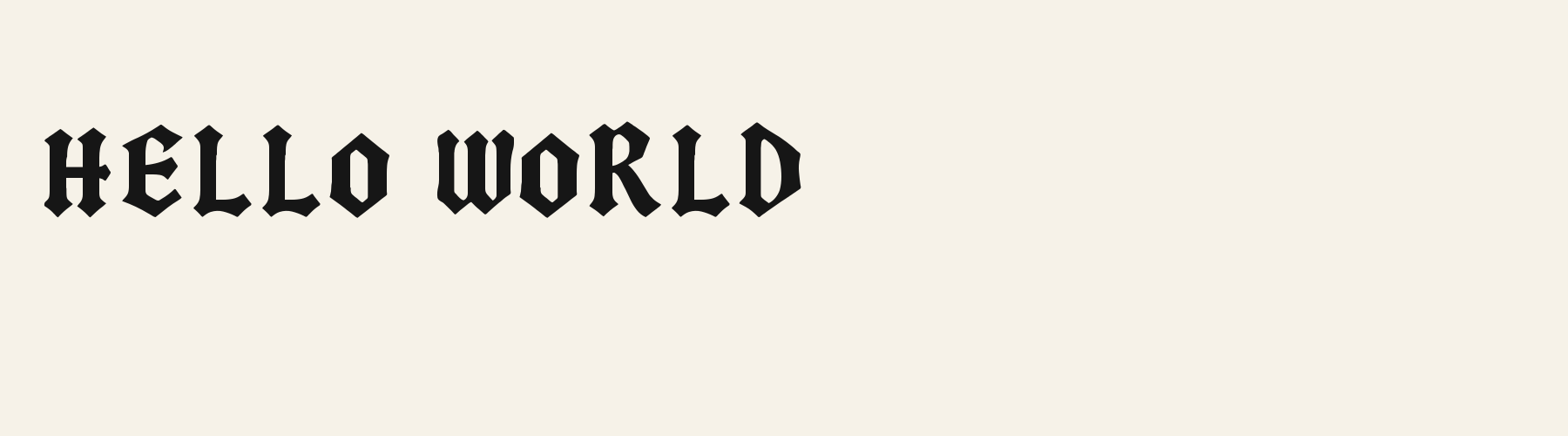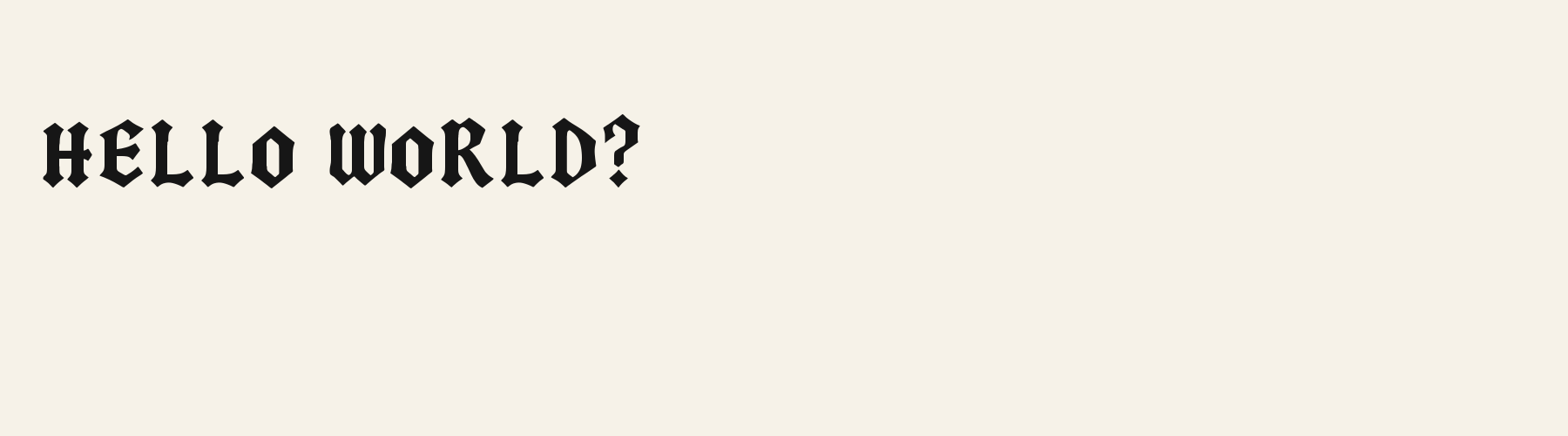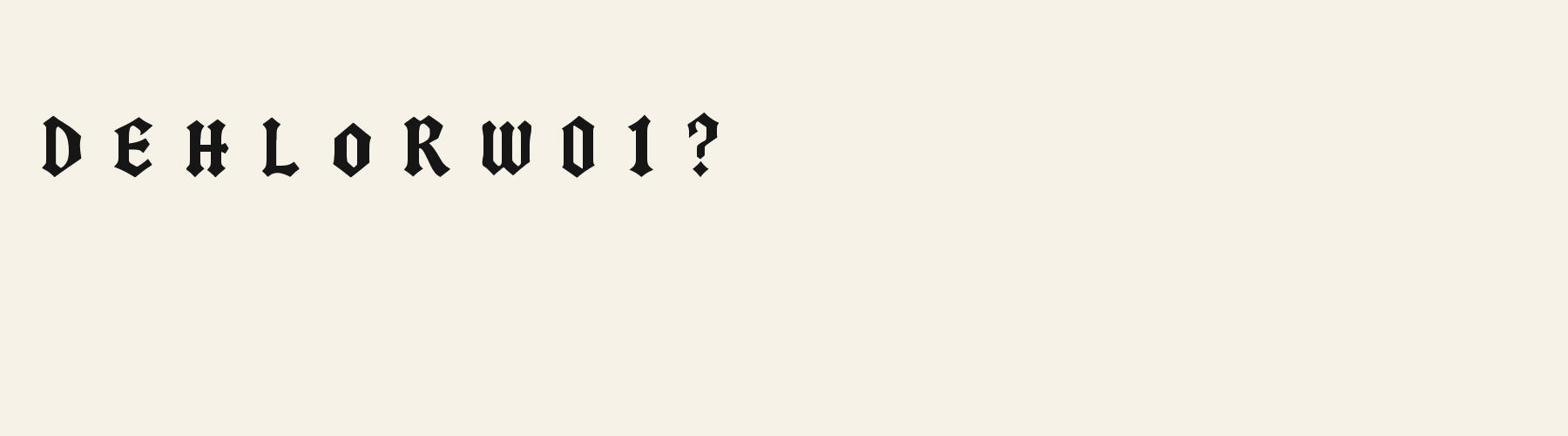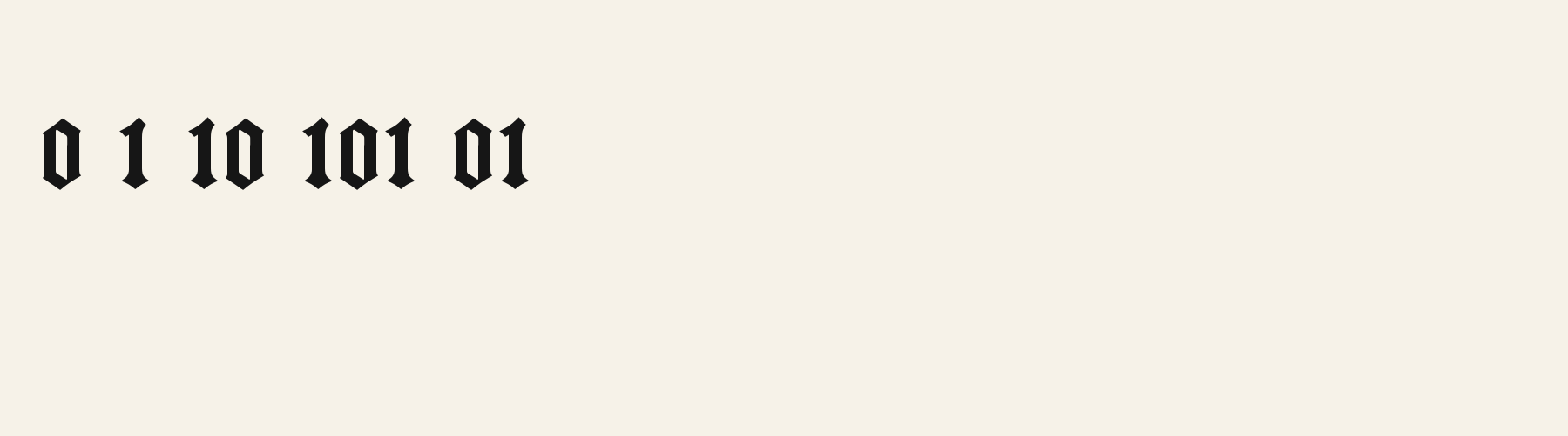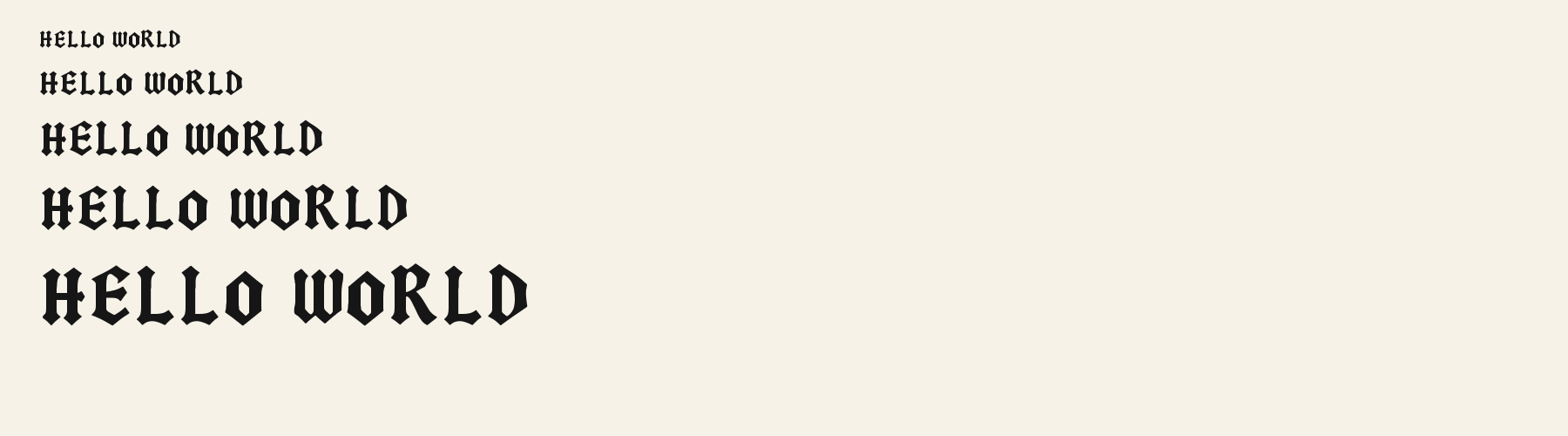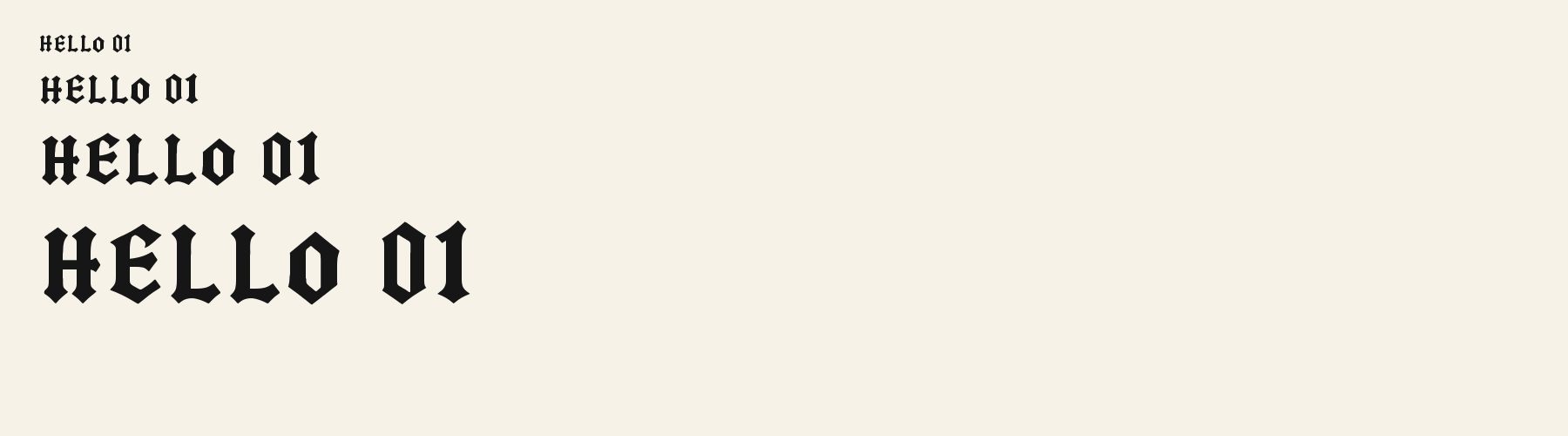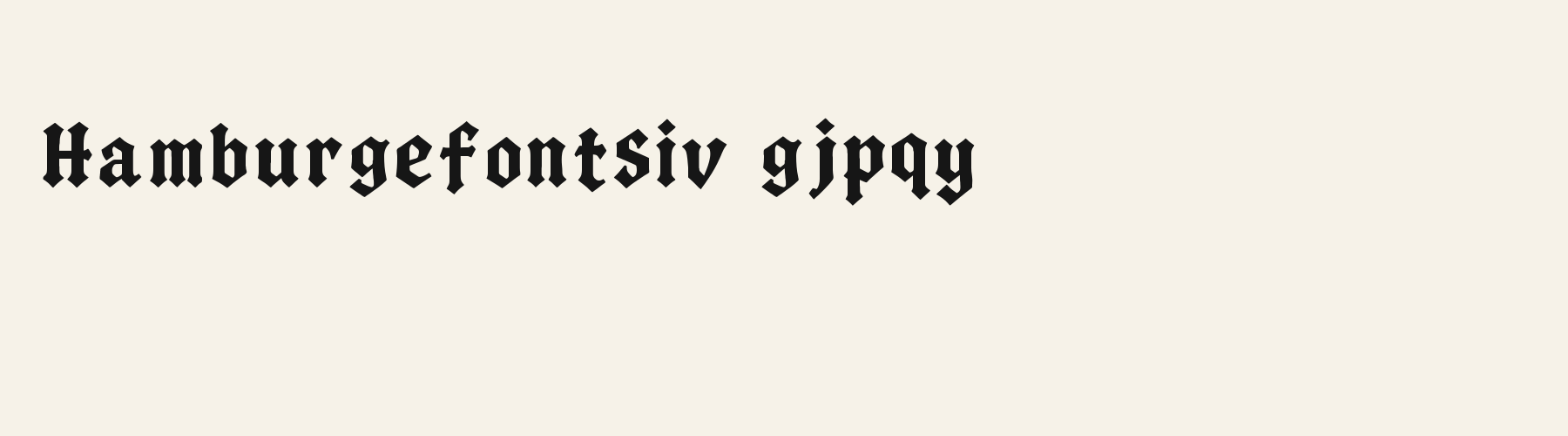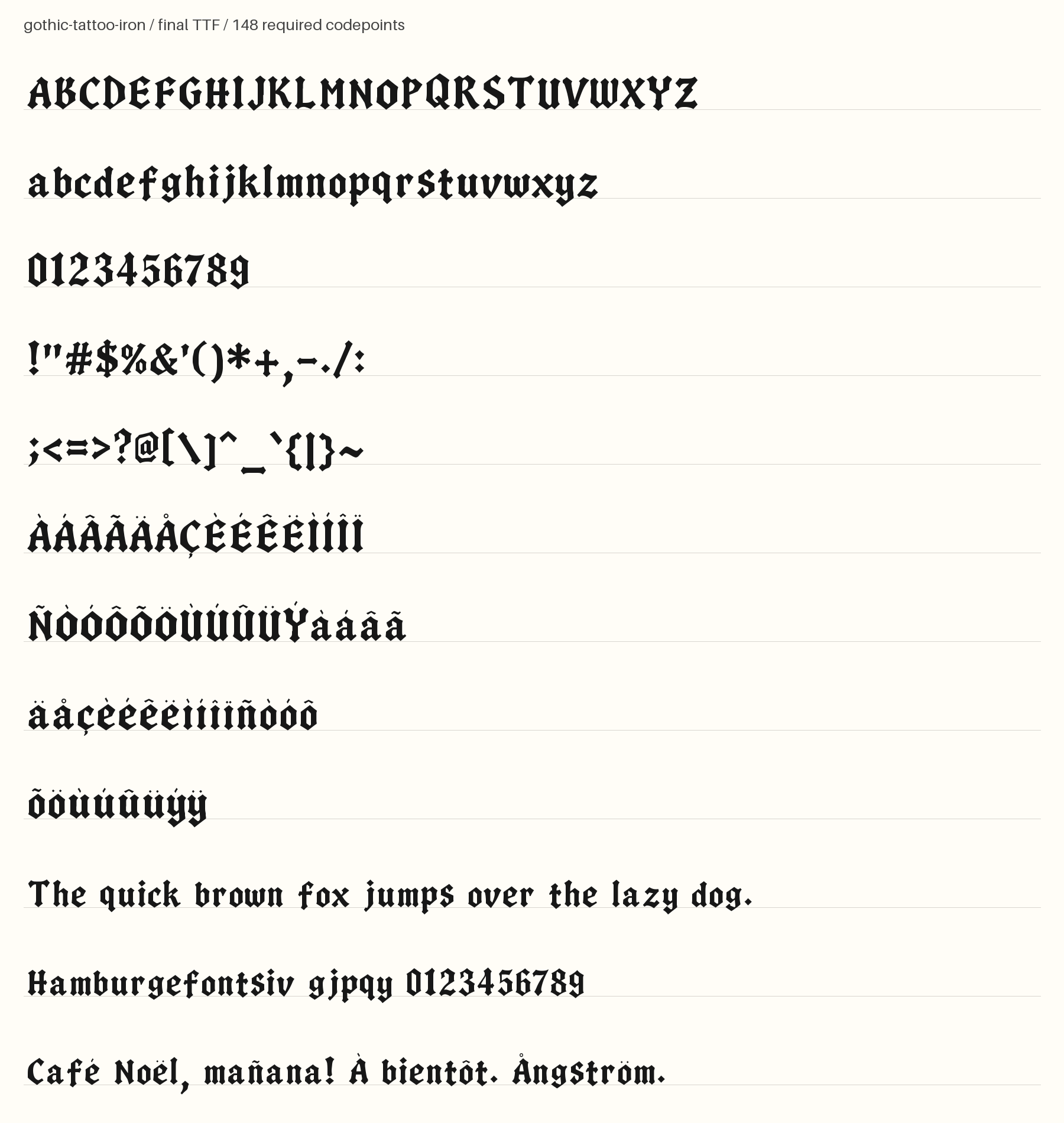
Gothic Tattoo Spire
Gothic Tattoo Iron is a bold tattoo words, band-style headings and medieval signage. heavy angular strokes, medium contrast, wide counters and short robust serifs. Best for bold tattoo words, band-style headings and medieval signage.
Includes all 95 printable Basic Latin characters and 148 glyphs in total.
Verified language coverage: English (Basic Latin)